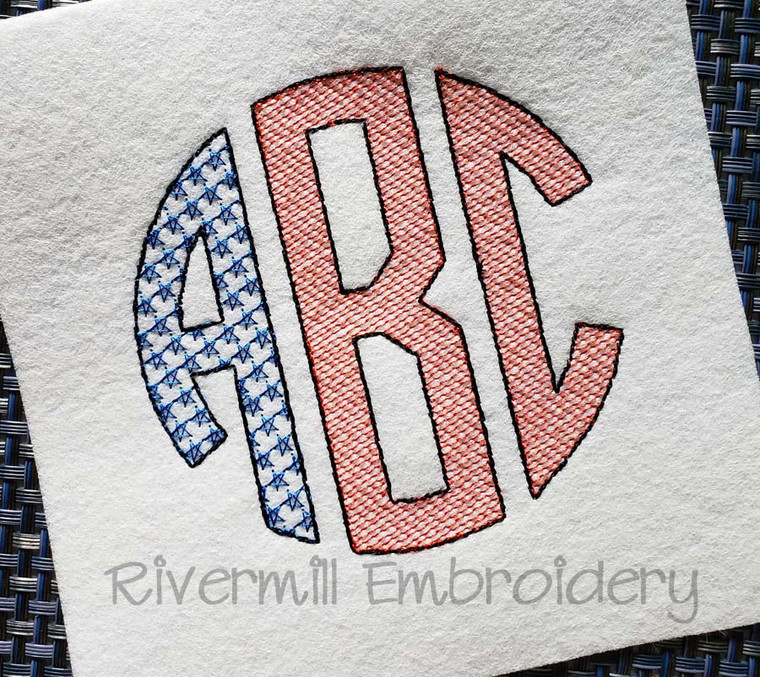
Patriotic Flag Round Circle 3 Letter Monogram Sketch Style Machine Embroidery Alphabet Font
You get 3 sizes of upper case letters for the Right, Center, and Left side that form a circle shape when put together.
The left letter in each size is filled with a star pattern. The center and right letters have a light fill stitch.